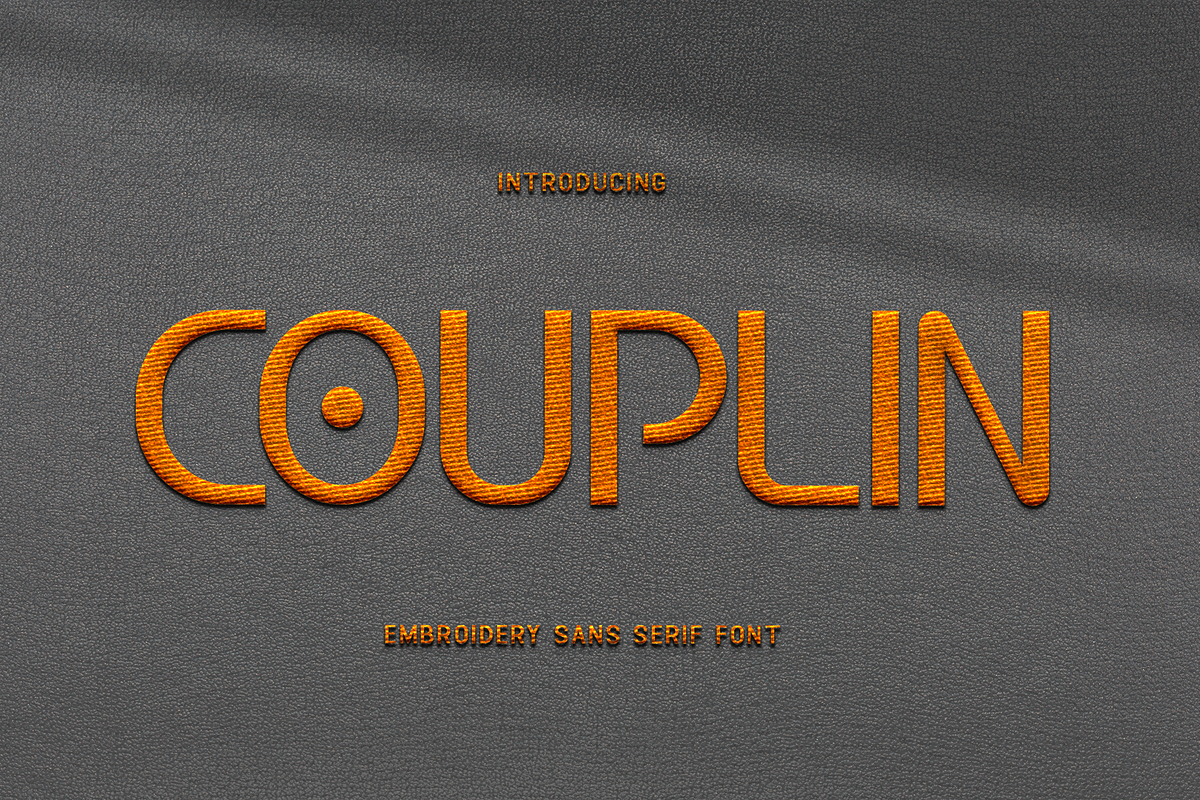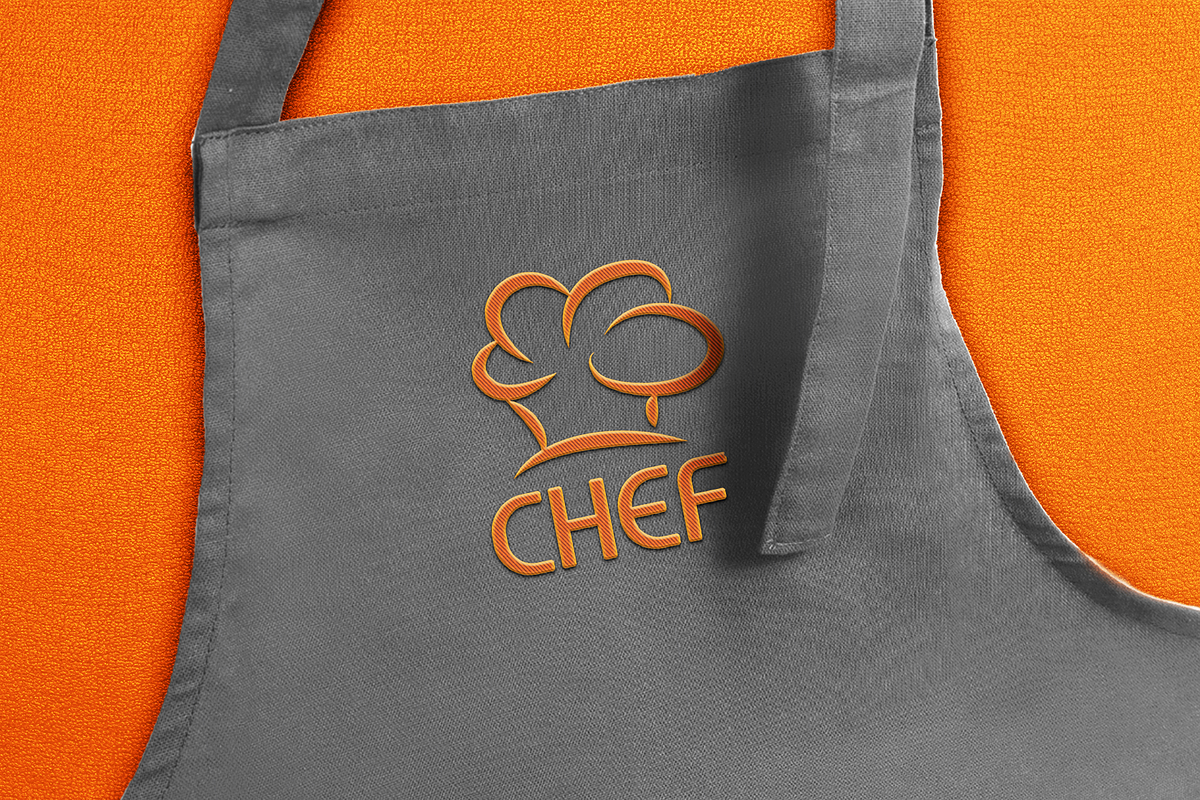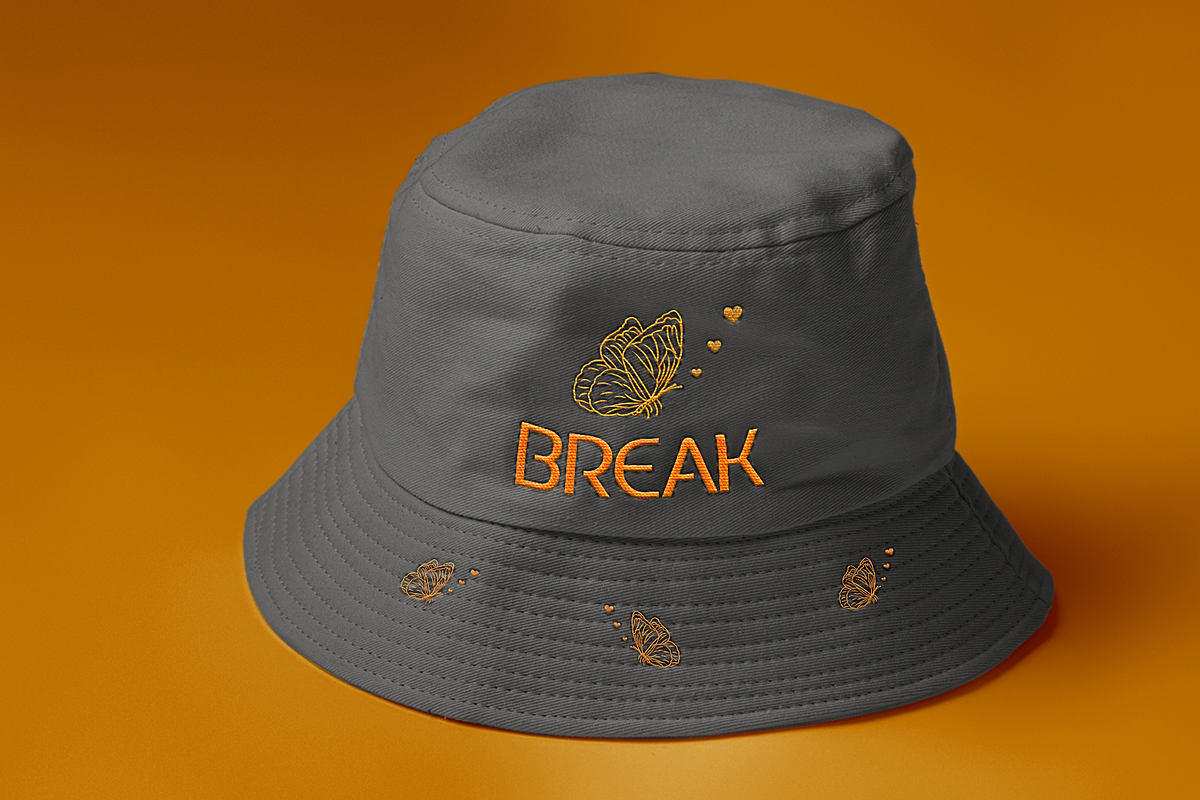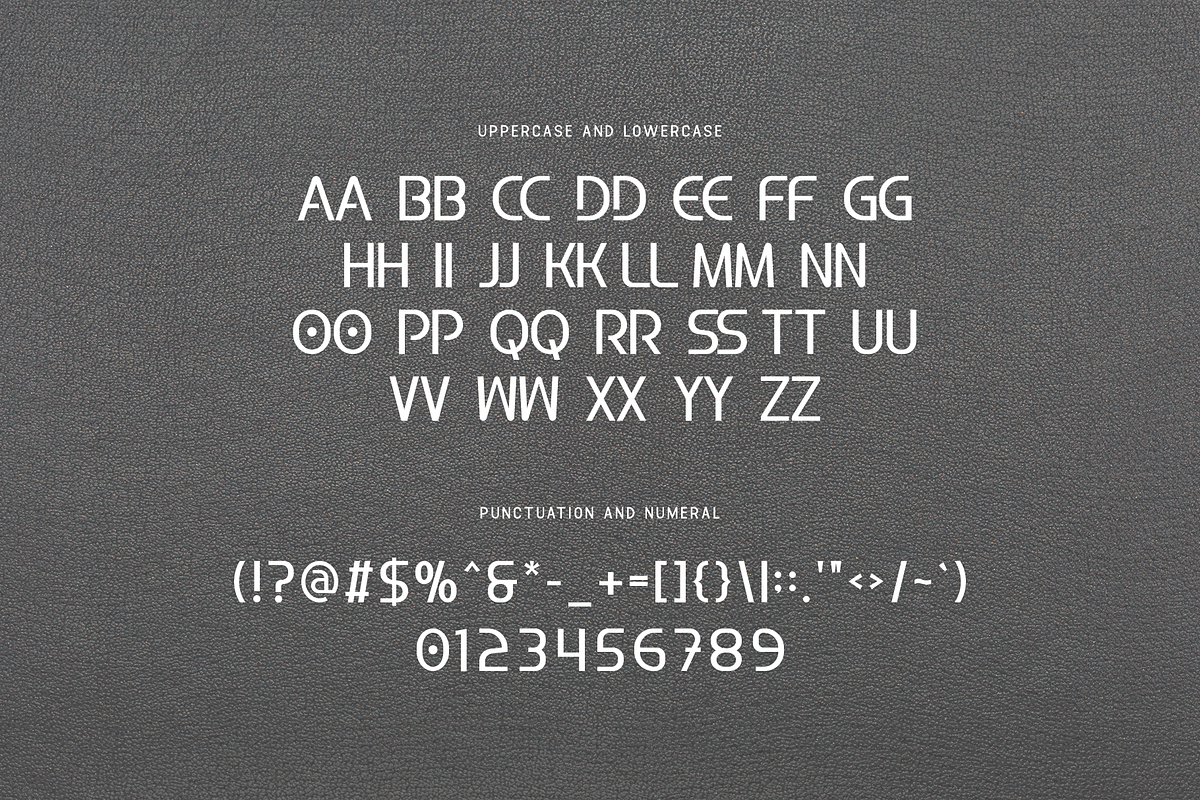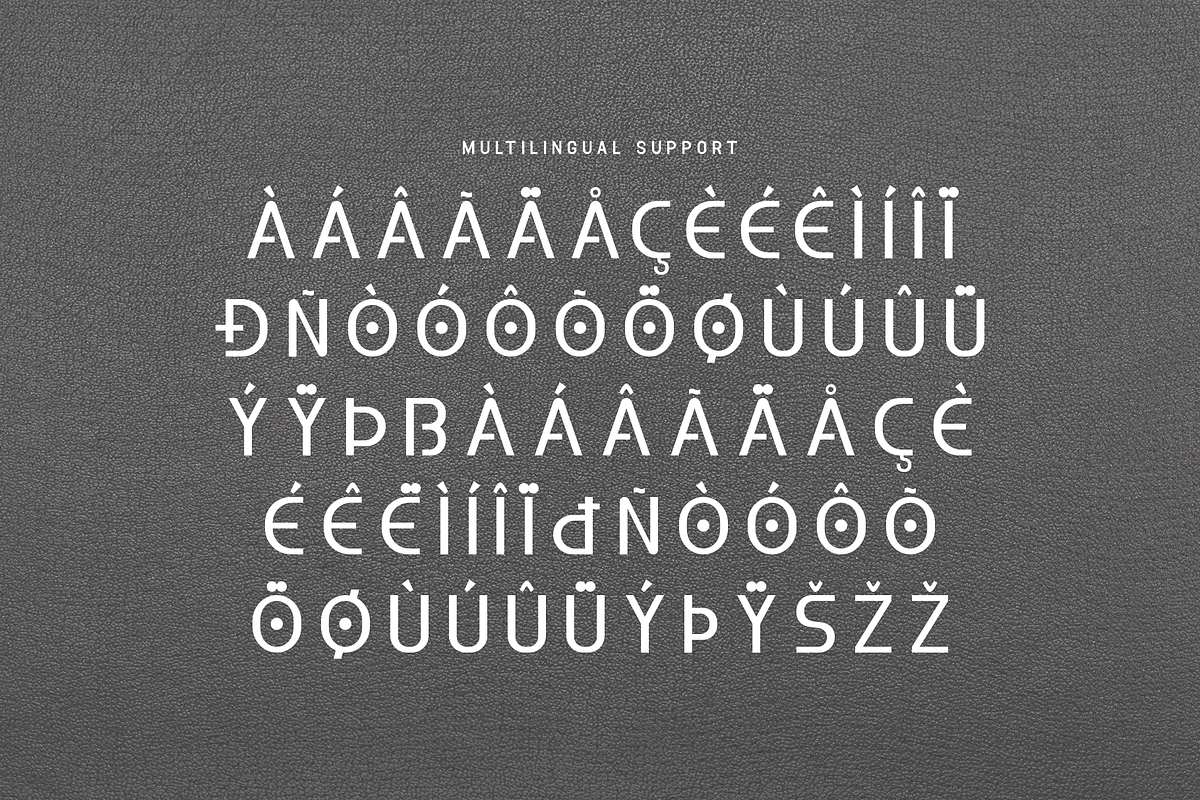
Couplin - Embroidery Sans Serif Font
Introducing "Couplin," an embroidery sans serif font that seamlessly combines modernity with the timeless art of stitching. Crafted with precision and care, Couplin brings a contemporary flair to traditional embroidery, making it the perfect choice for a wide range of creative projects.
Ideal for embroidery enthusiasts, designers, and crafters alike, Couplin adds a touch of sophistication to apparel, accessories, home decor, and more. Its clean lines and minimalist design allow for effortless stitching, while its sans serif style brings a modern twist to traditional embroidery techniques.
The "Couplin" font features a complete set of uppercase and lowercase letters, numbers, and punctuation marks, offering versatility and flexibility for all your design needs. Whether you're embellishing clothing or adding decorative accents to home furnishings, Couplin enhances your creations with its elegant embroidery-inspired typography.
Experience the beauty of modernity seamlessly stitched with the Couplin embroidery sans serif font.